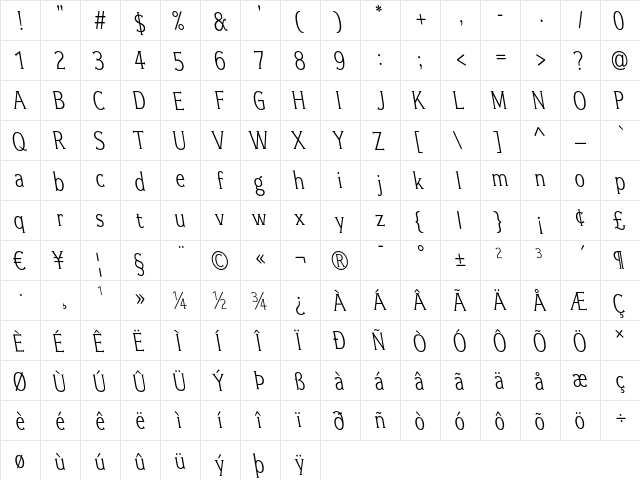
Ideal Gothic Oblique Oblique
Design Context for Ideal Gothic Oblique Typeface
Ideal Gothic Oblique has the quiet confidence of well-executed sans-serif typography: versatile, unobtrusive, and dependable at any size. The slanted form adds forward momentum and visual energy.
Font Pairing: Works well alongside a characterful serif or display font that can carry the expressive load while Ideal Gothic Oblique handles the functional copy.
Pro Tip: Pair Ideal Gothic Oblique with a display or serif font for headlines — its neutral character makes it an excellent supporting player in complex typographic systems.